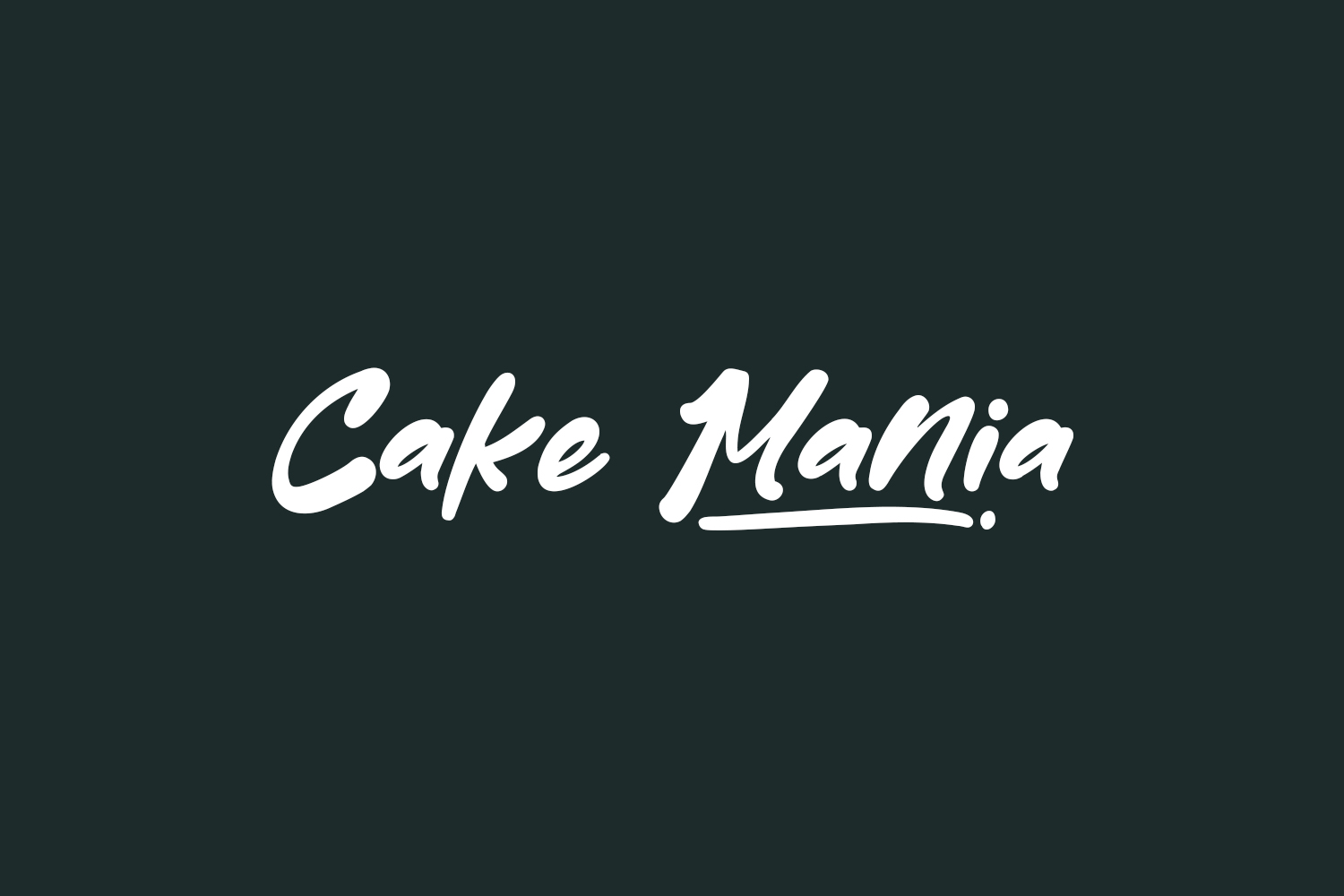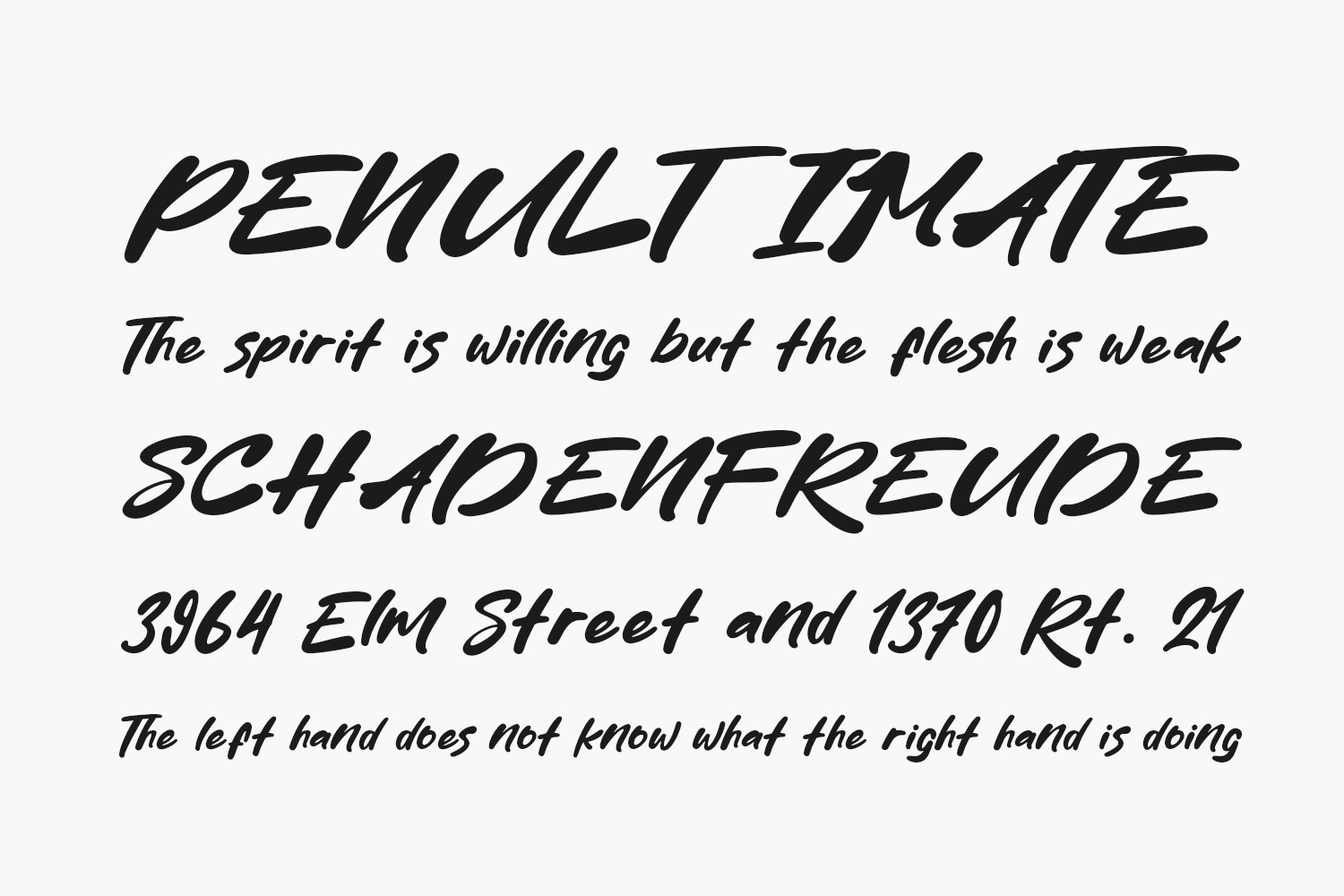
Discover the irresistible charm of Cake Mania Free Font – a contemporary and elegant display font that effortlessly complements posters, logos, magazines, book covers, banners, and a myriad of other creative projects! Elevate your designs to new heights with this remarkable font, infusing them with delightful allure. Its seamless adaptability to a diverse range of projects ensures your creative ideas shine brilliantly. Unleash the power of Cake Mania and witness how it transforms your designs into captivating masterpieces that truly stand out! Grab this amazing font now and let your creativity flourish. Cake Mania Free Font is free for personal or commercial use.